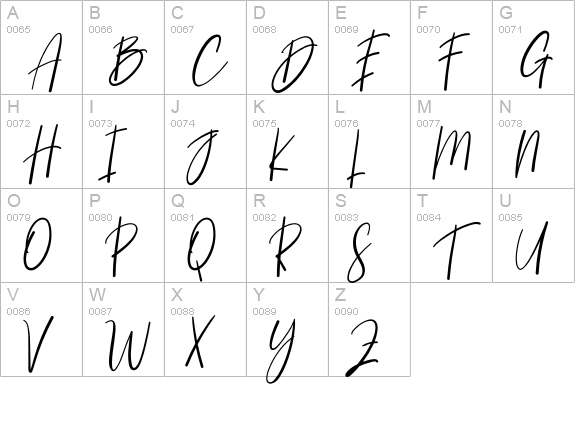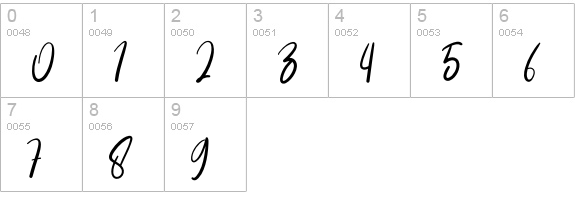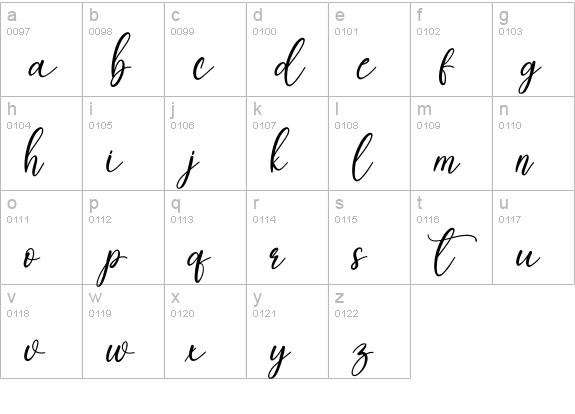
Sellinda is a free for personal use font in the Script > Graffiti category, designed by scratchones. It has been downloaded 32 times and is available for Windows, Mac and Linux.
Sellinda font is a stylish and elegant typeface that exudes sophistication and charm. With its graceful curves and clean lines, this font is perfect for adding a touch of class to any project. Whether you're designing a wedding invitation, creating a logo for a high-end brand, or putting together a professional presentation, Sellinda font is sure to impress.